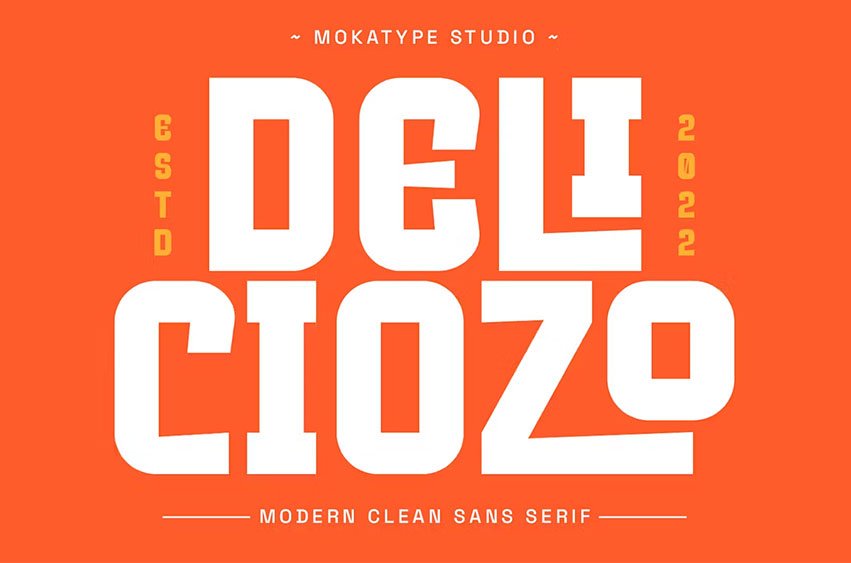
Deliciozo Clean Font is a powerful and elegant display typeface, Deliciozo is strong for simple display design with short text like headlines and quotes. Build with several ligatures, Deliciozo makes a strong impression in print, headlines, videos, social media and etc.